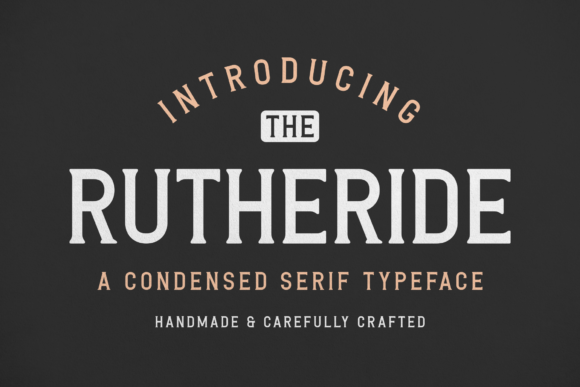
Embark on a Thrilling Retro Ride with Rutheride Font: A Timeless Serif Masterpiece
In a world saturated with ordinary fonts, Rutheride Font emerges as a captivating vintage slab serif, drawing inspiration from the iconic auto and motorcycle posters that defined the 1980s. Step into a realm of nostalgia and vintage aesthetics with this remarkable font crafted by hptypework.
Unleash your creativity and let Rutheride Font be your trusty companion in crafting captivating vintage posters, flyers, headlines, and titles that command attention. Dive into the depths of its meticulously designed glyphs, each carrying the essence of a bygone era. Feel the rush of adrenaline as your designs exude a timeless charm, reminiscent of the golden age of advertising.
With Rutheride Font, you'll embark on a journey to the past, where bold strokes and sharp serifs tell stories of adventure, speed, and freedom. Its unique character set evokes a sense of nostalgia, inviting your audience to reminisce about the glory days of racing and cruising.
Immerse yourself in the world of vintage design and let Rutheride Font ignite your creativity. Seize this opportunity to make a lasting impression with your projects, whether it's a retro-themed poster or a captivating headline that transports your audience back in time.